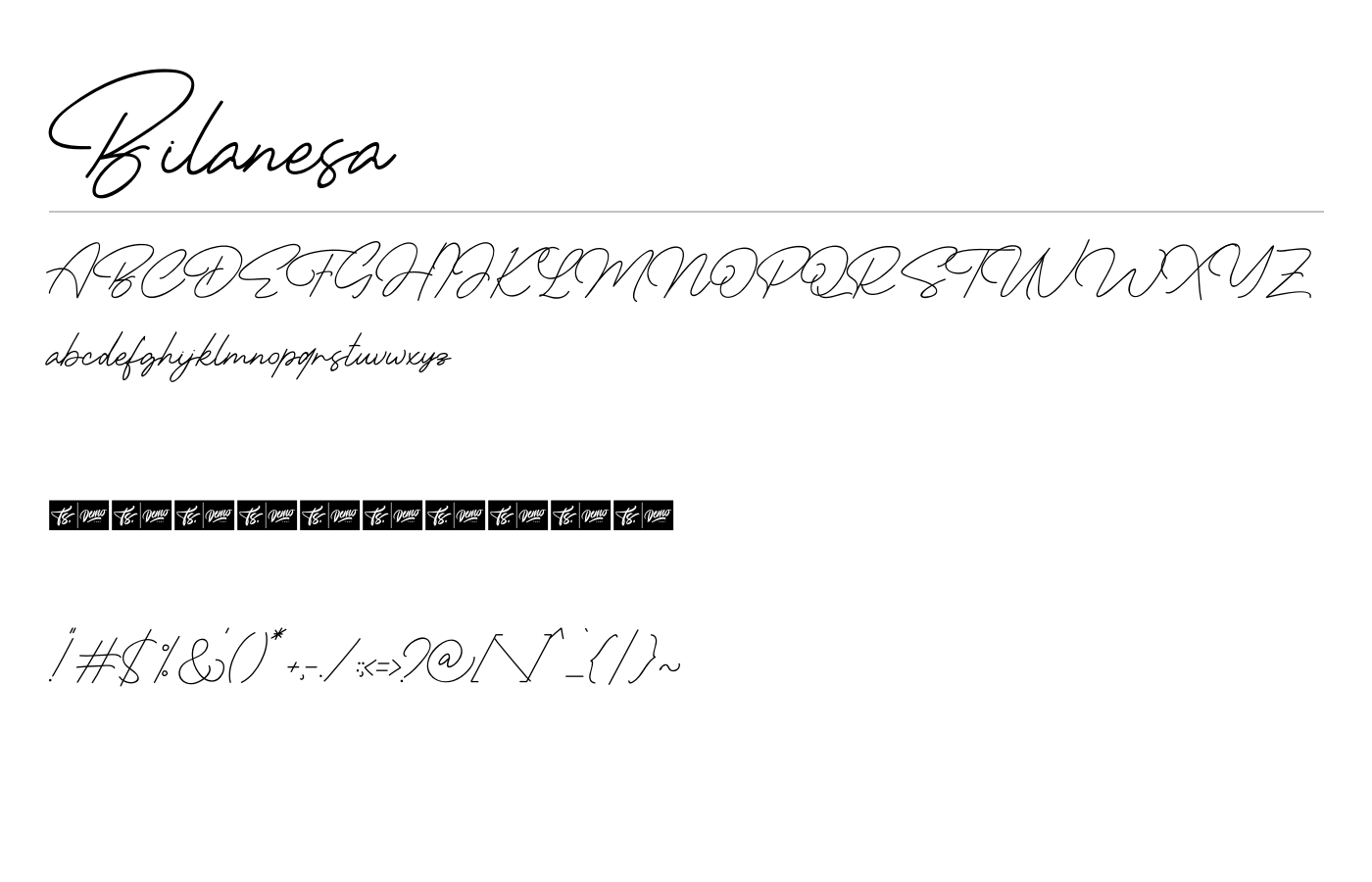
Bilanesa is an elegant, lightweight script font with a delicate, handwritten style that conveys a sense of sophistication and personal touch. Its flowing, cursive letterforms feature smooth, thin strokes and a natural rhythm, making it perfect for invitations, branding, and creative projects that seek a graceful and refined appearance. This font works well in designs where a soft, elegant feel is desired, especially in fashion, beauty, and luxury contexts.
Bilanesa Font